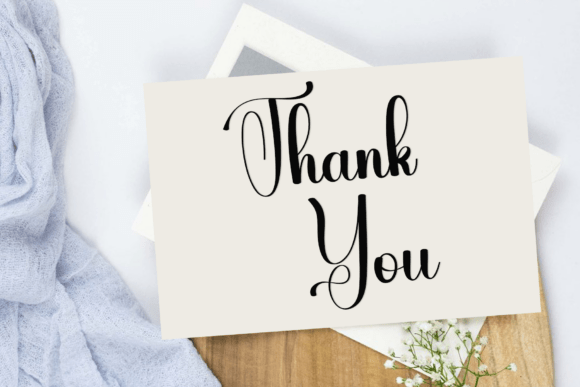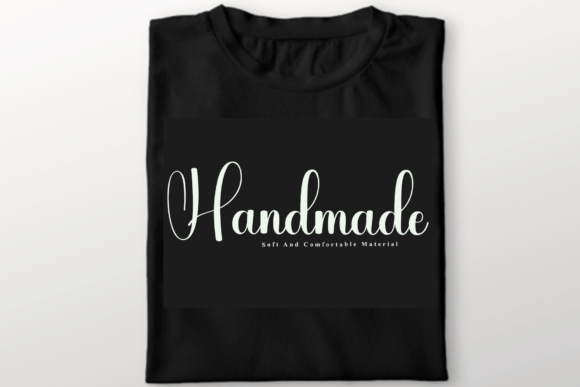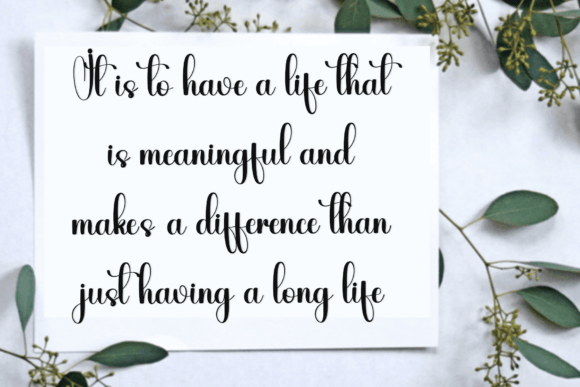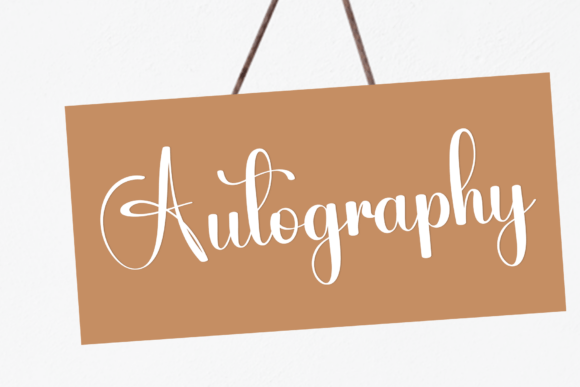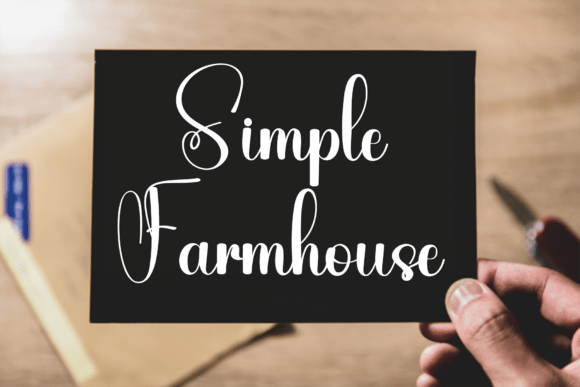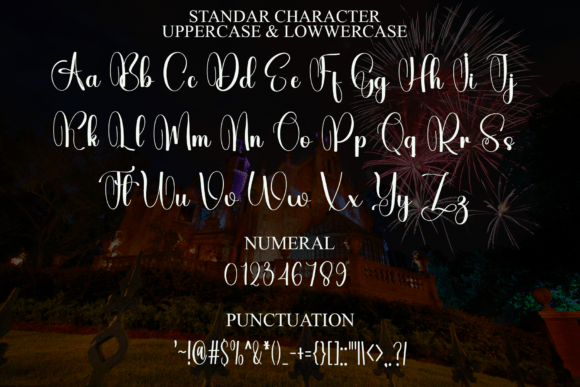
Get Ready to Celebrate with the Birthday Majesty Font
Have you ever felt like you’re on the verge of a creative breakthrough, only to be stopped by a font that just doesn’t capture the essence of your design? It’s a frustrating feeling, but one that’s easily resolved with the right typography. As the holiday season approaches, I find myself craving fonts that evoke a sense of magic and wonder. That’s where the Birthday Majesty Font comes in – a festive and merry typeface that’s sure to bring a touch of enchantment to your designs.
Perfect for greeting cards, gift tags, and holiday-themed projects, the Birthday Majesty Font is a valuable asset for any designer looking to add a bit of whimsy to their work. With its decorative elements and PUA encoding, this font makes it easy to access all of the amazing glyphs and ligatures that will elevate your typography to new heights.
Birthday Majesty Font Key Features
- Font Family: Birthday Majesty, a custom-designed font for special occasions.
- Unique Characteristics: Features elegant, cursive script with intricate details, making it perfect for wedding invitations, birthday cards, and other special event materials.
Birthday Majesty Font Review
As a designer, I was excited to try out the Birthday Majesty Font, but I have to say, it’s a bit of a mixed bag. Let’s start with what works well: ✨ The font is incredibly elegant and regal, perfect for making any birthday celebration feel like royalty. The intricate details and ornate flourishes add a touch of sophistication that’s hard to find in other fonts. ✨ The font also comes in a range of weights and styles, making it versatile enough for use in various design projects.
However, there are some limitations to consider: ⚠️ The font can be a bit over-the-top at times, making it feel more suited to a lavish wedding or high-end branding than a simple birthday celebration. ⚠️ Additionally, the font’s complexity can make it difficult to read at smaller sizes or in certain contexts.
Overall, I think the Birthday Majesty Font is a solid choice for designers looking to add a touch of luxury to their projects. However, it’s not for every occasion, and you’ll want to use it judiciously to avoid overwhelming your audience.
- Perfect for: Luxury branding, special occasions, and high-end design projects.
- Not recommended for: Simple designs, text-heavy content, or smaller-scale projects.
Getting the Most Out of the Birthday Majesty Font
To get the most out of the Birthday Majesty font, use it to create custom and eye-catching designs, such as:
- Birthday invitations and cards.
- Wedding invitations and decorations.
- Party banners and decorations.
The Birthday Majesty font is perfect for creating beautiful and elegant designs for:
- Birthday parties and celebrations.
- Weddings and anniversaries.
- Anniversary and holiday decorations.